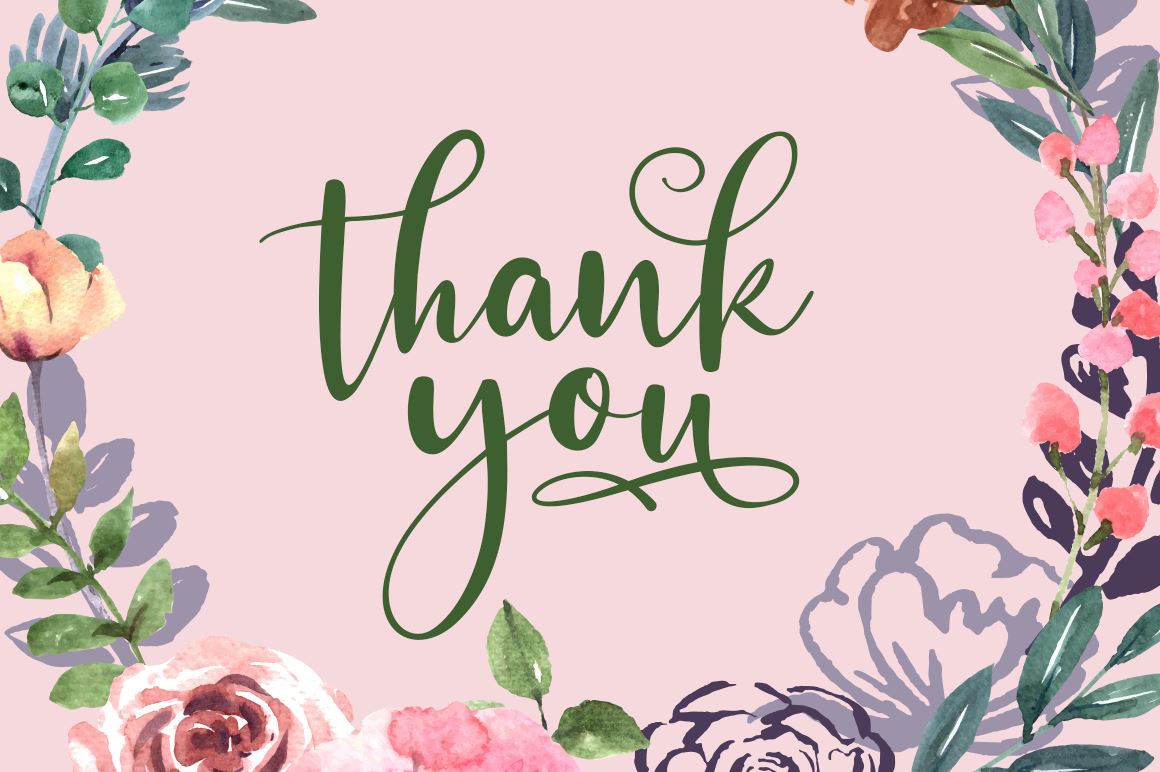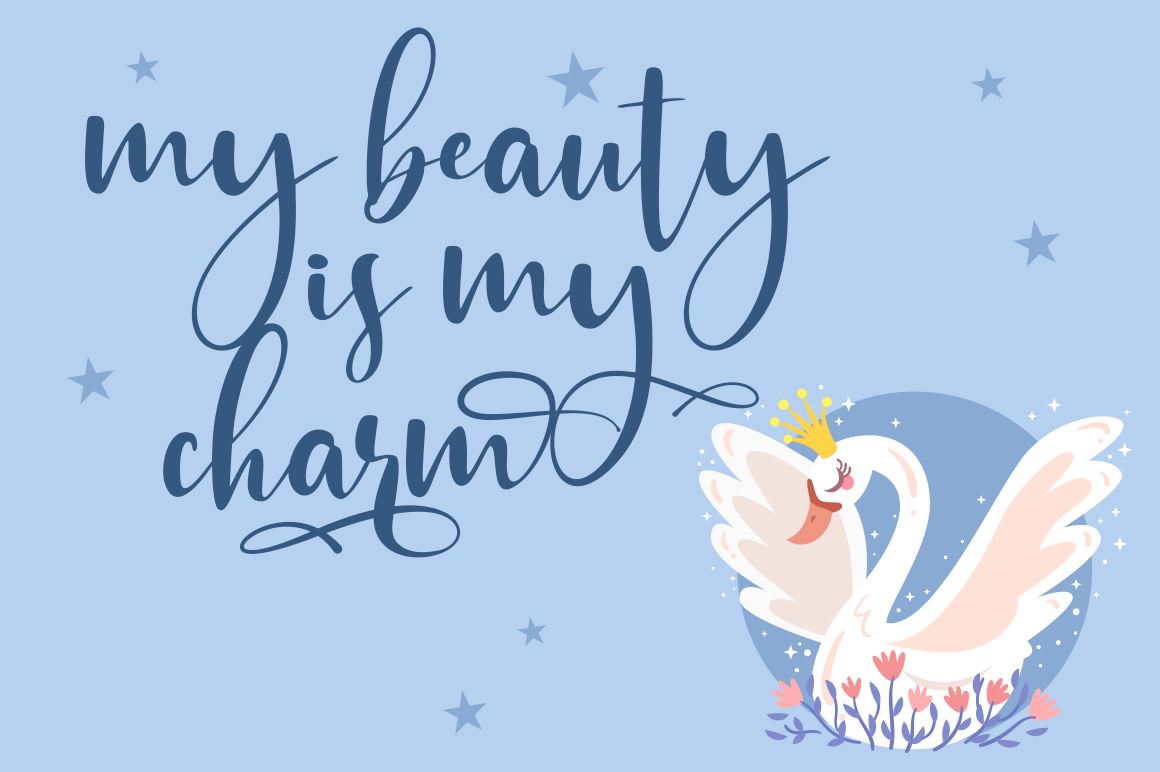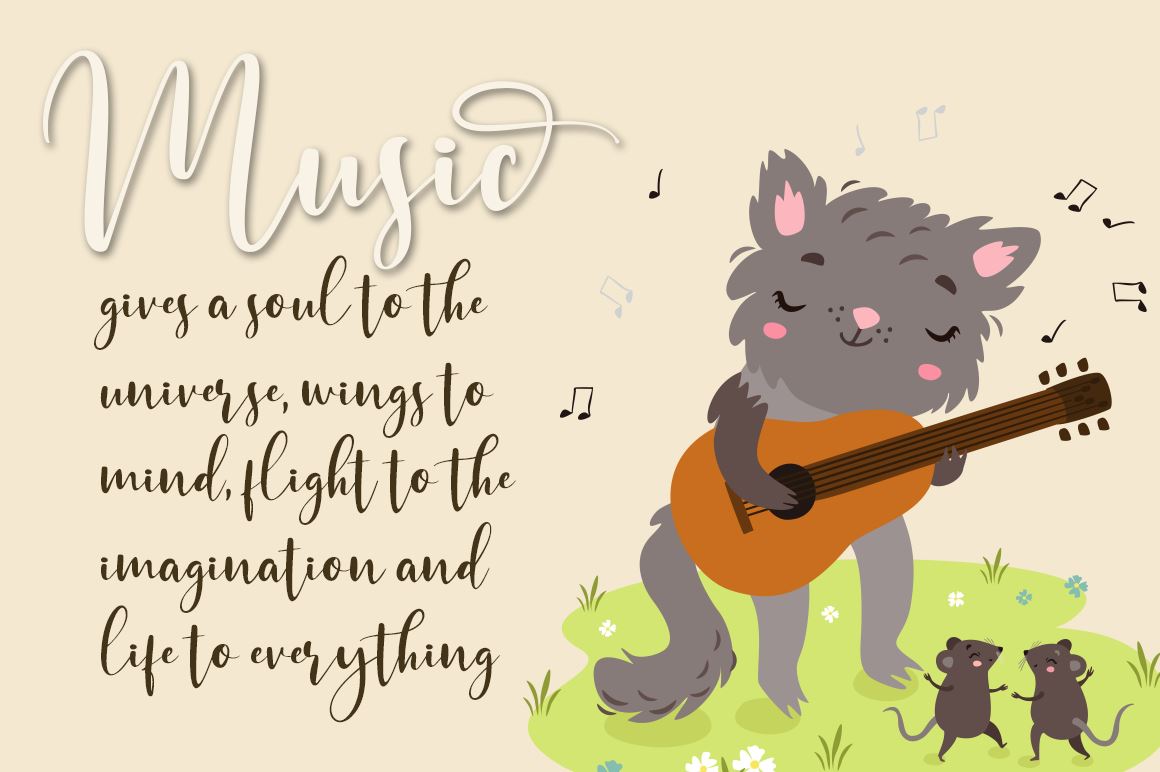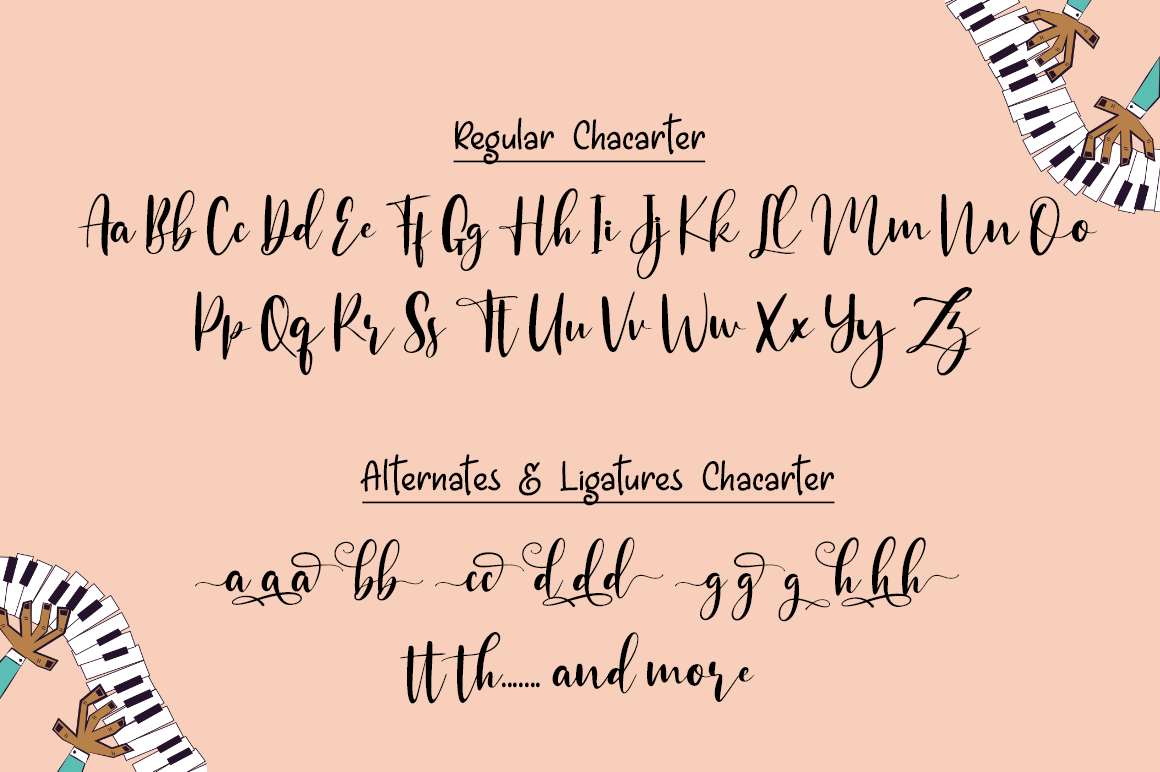
About Piano Teacher Script With Harmony Feel
A hand lettered font with modern calligraphy style Specifics: Cute and pretty style with alternates in lowercase You will receive otf, ttf and woff files with your purchased Numerical, Punctuation, Multi language included Happy Designing!